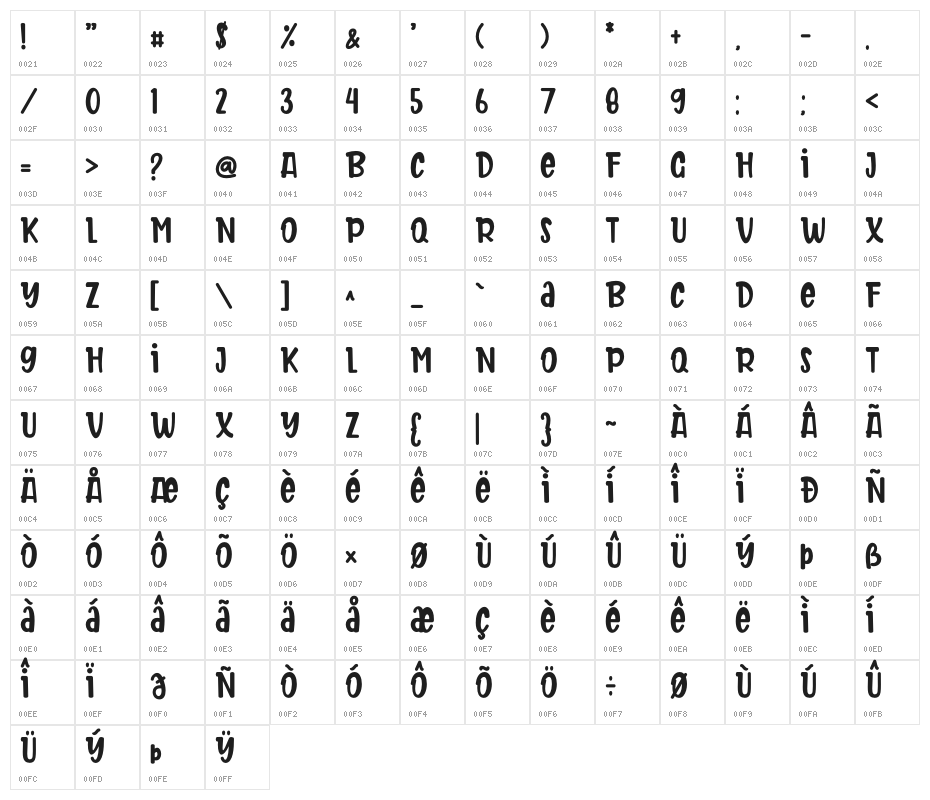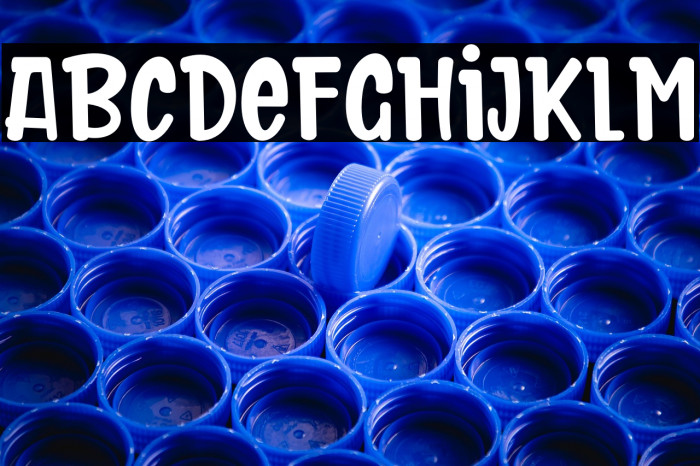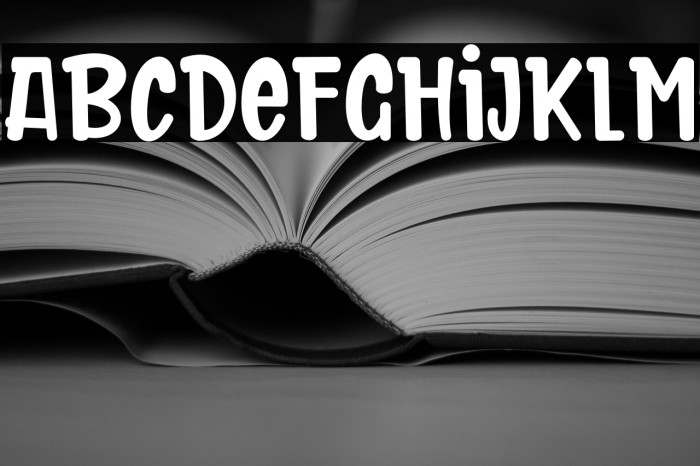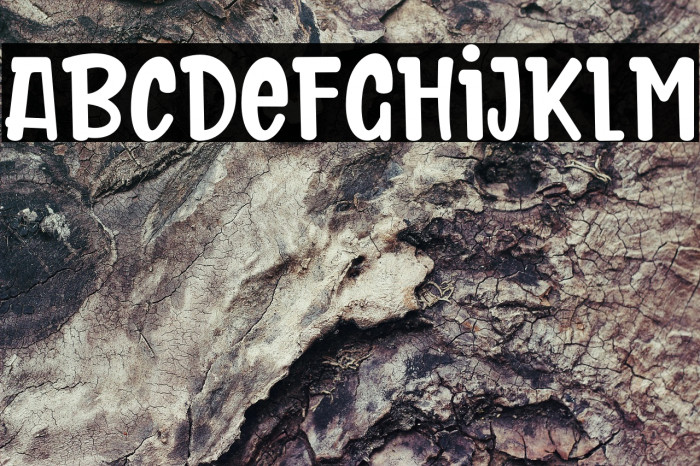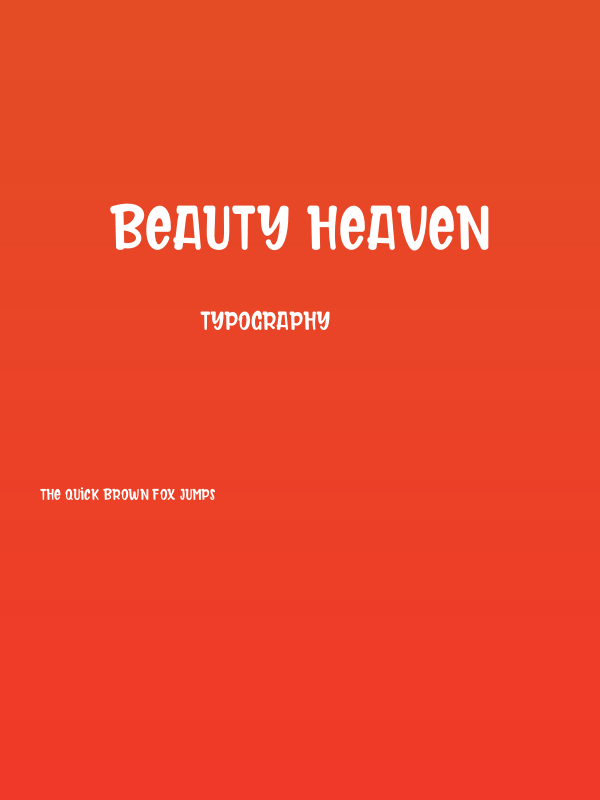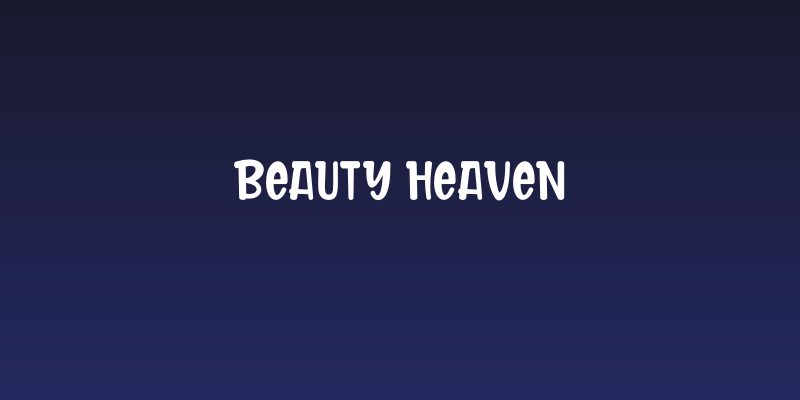
Beauty Heaven Font
Beauty Heaven Description
This font features a playful and bold design with rounded edges and a slightly whimsical touch. The characters are thick and uniform, creating a strong visual impact. The uppercase and lowercase letters maintain a consistent style, with a slight slant that adds a dynamic feel. The numbers and special characters are equally bold, ensuring readability and coherence across different uses. Its overall appearance is friendly and approachable, making it suitable for a variety of creative projects.
Overall StylePlayful
Proposed ProjectsIdeal for children's books, playful branding, posters, and social media graphics.